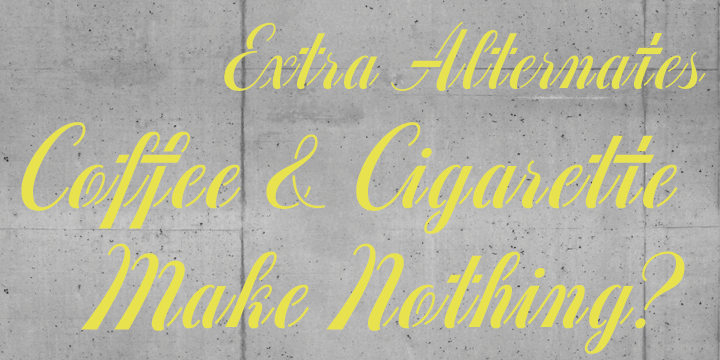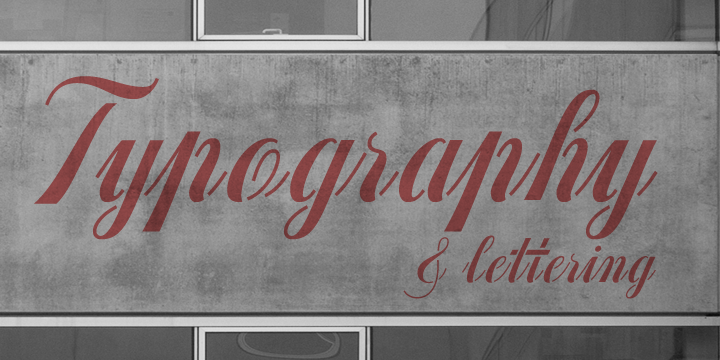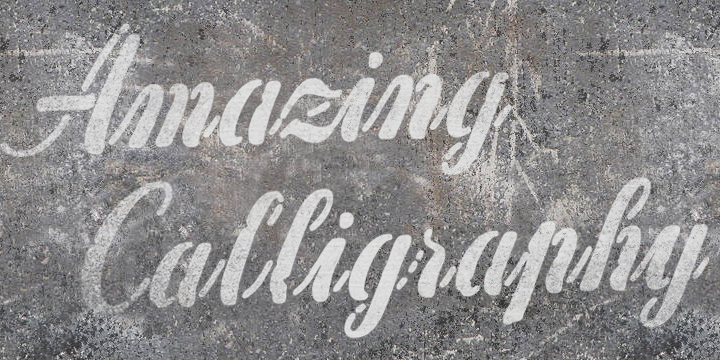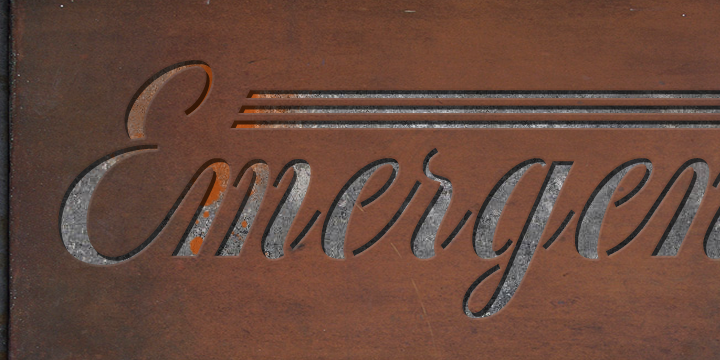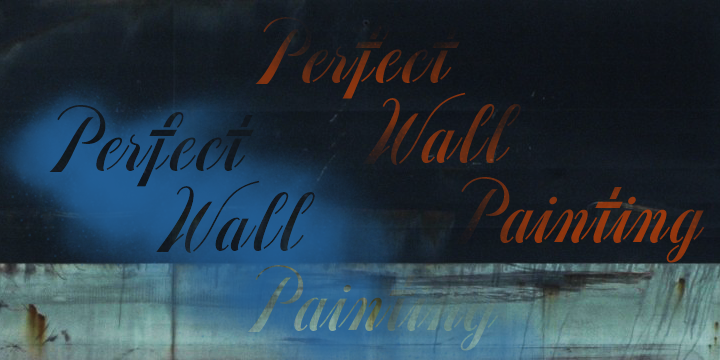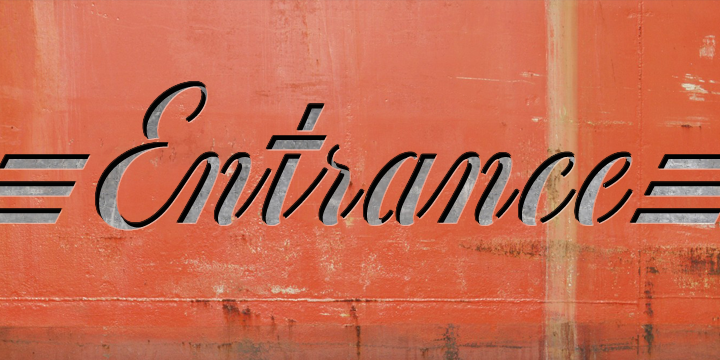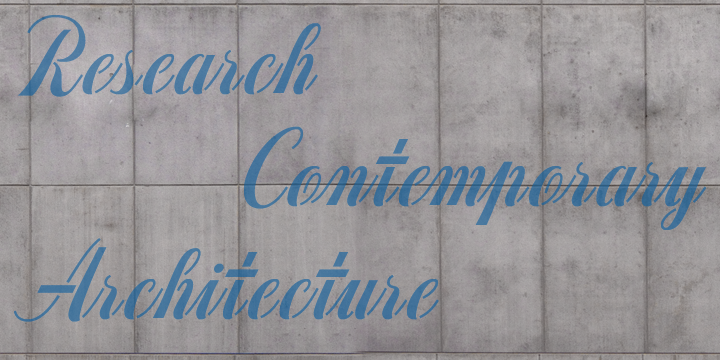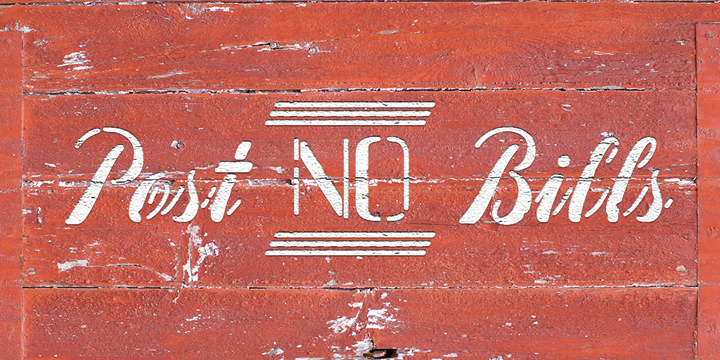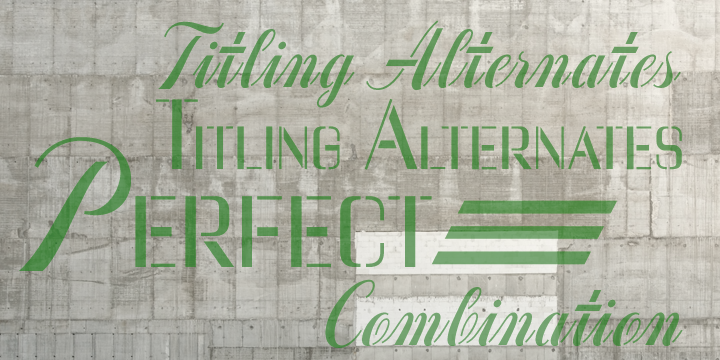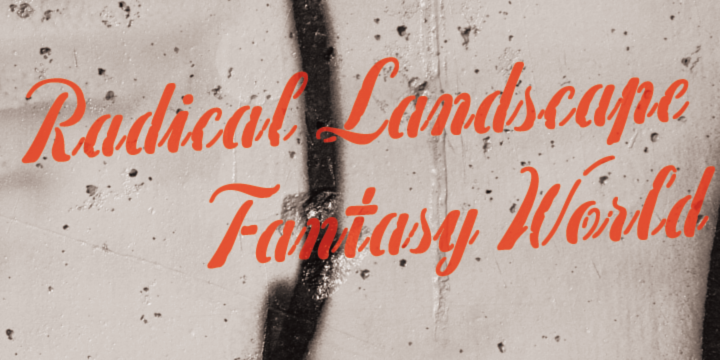
Concrete Stencil
No explanation needed—this is the ultimate stencil script.
It comes in two styles: Clean and Stencil-Effected, offering both precision and edge.
Includes OpenType titling alternates for added typographic versatility.